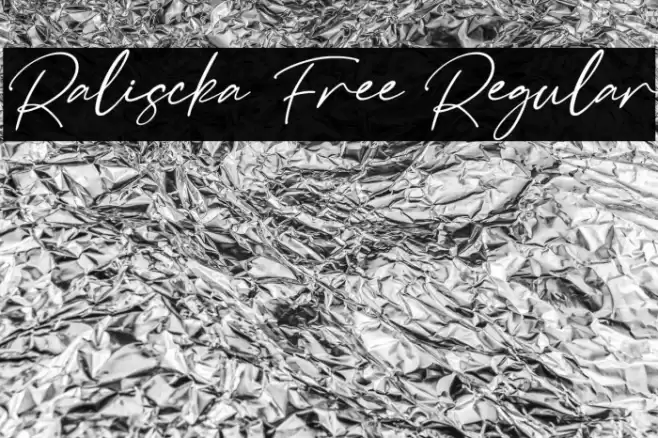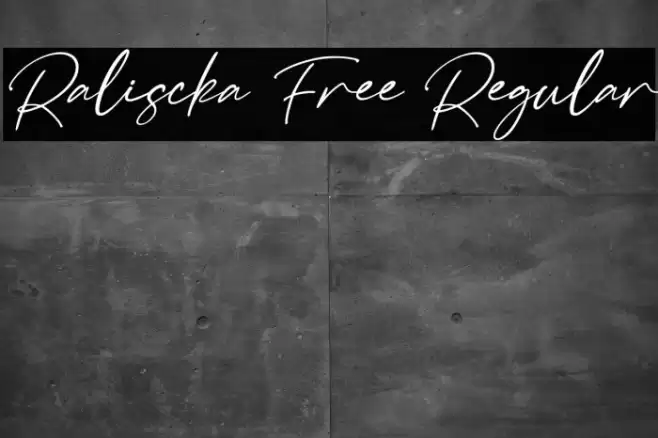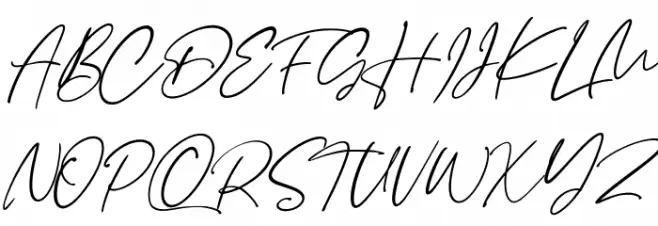
Raliscka Free Regular Font
Raliscka Free Regular Description
This font features a flowing, cursive style with elegant, sweeping strokes that convey a sense of sophistication and grace. The characters are connected in a fluid manner, giving it a handwritten appearance. The uppercase letters are bold and prominent, while the lowercase letters maintain a consistent flow. The numbers and special characters are designed to match the overall aesthetic, ensuring a cohesive look across all text. This font is ideal for projects that require a personal touch, such as invitations, greeting cards, or branding materials.
A flowing, cursive font with elegant, sweeping strokes from Uncategorized fonts.
- Proposed Projects: Ideal for wedding invitations, personal branding, greeting cards, and elegant logos.
- Overall Style: Elegant, Handwritten
- Use Case: Headlines, Invitations, Branding